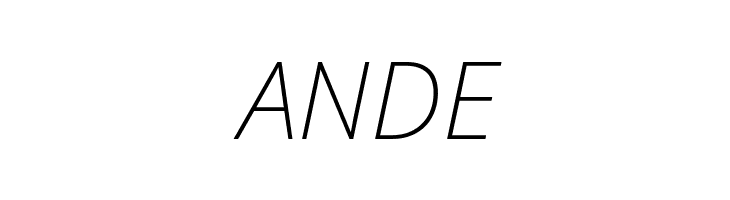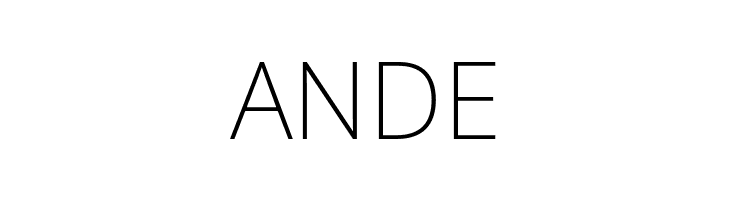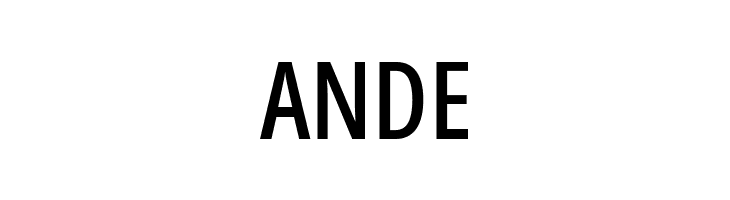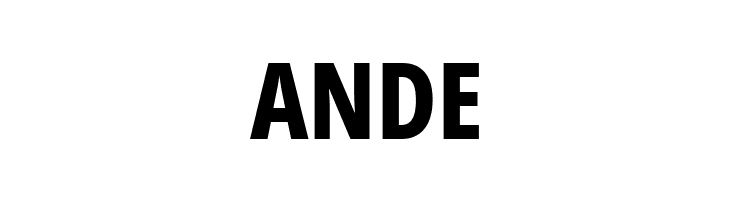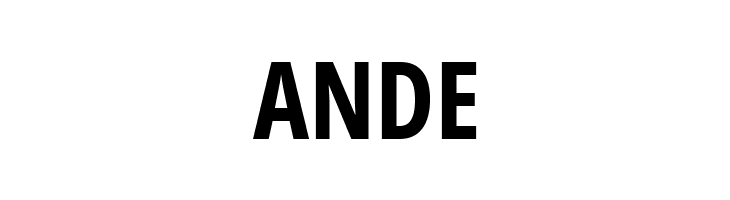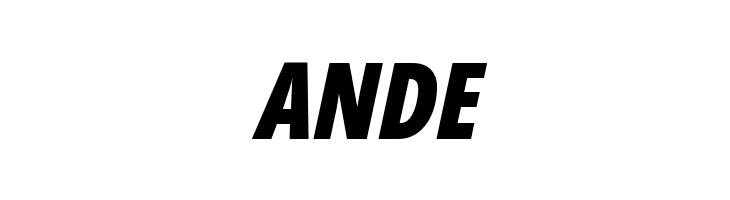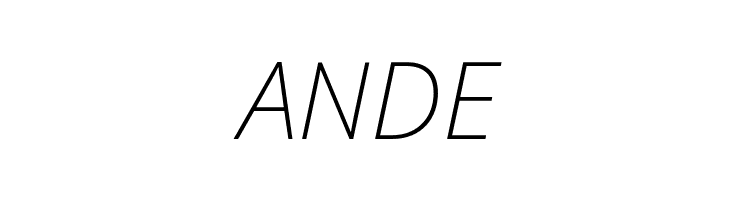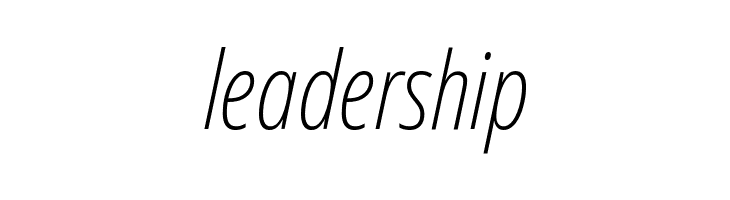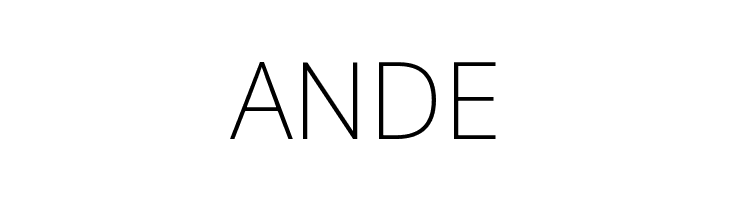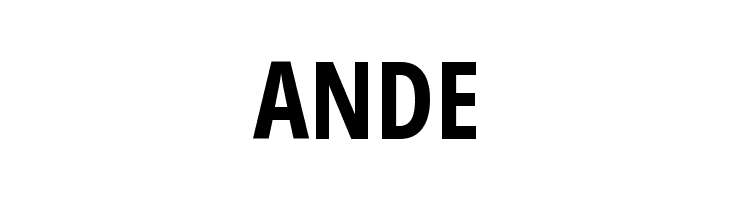
A bold, extra condensed italic sans-serif font with high contrast and tight spacing.
A modern, bold, extra condensed sans-serif font with clear, uniform strokes.
A modern, bold, extra condensed sans-serif typeface with strong visibility.
A modern, extra-condensed, bold italic typeface with a sleek and professional appearance.
A bold, italic, extra-condensed sans-serif font with a modern and dynamic style.
A bold, extra condensed sans-serif typeface with a modern, clean design.
A modern, extra bold, extra condensed sans-serif font with excellent legibility.
A bold, extra-condensed sans-serif font with italic styling and high contrast.
A modern, extra bold, italic, and extra condensed sans-serif typeface.
A modern, extra light, extra condensed sans-serif font with a clean and streamlined appearance.
A modern, extra-condensed sans-serif font with an extra light weight.
A sleek, extra light, italic, and extra condensed font with a modern and minimalist design.
A modern, extra light, extra condensed sans-serif with italic style.
A modern, extra-condensed sans-serif italic font with tight spacing.
A sleek, modern sans-serif font with an extra condensed and italicized style.
A modern, extra condensed sans-serif font with a light and airy appearance.
A modern, extra condensed sans-serif font with a light weight and clean design.
A sleek, extra-condensed, light, and italic sans-serif font with a modern style.
A sleek, extra condensed sans-serif font with a light, italic style.
A modern, extra-condensed sans-serif font with medium weight, ideal for space-efficient text.
A modern, extra condensed sans-serif font with medium weight and high legibility.
A sleek, extra condensed italic typeface with a modern and dynamic style.
A modern, extra condensed sans-serif font with medium weight and italic style.
A modern, extra condensed sans-serif font with semi-bold weight for versatile use.
A modern, extra condensed sans-serif font with semi-bold weight and tight spacing.
A modern, extra condensed, semi-bold italic sans-serif typeface with tight spacing.
A modern, extra condensed sans-serif font with semi-bold weight and italic style.
A modern, extra-condensed sans-serif font with thin strokes and a clean aesthetic.
A modern, extra condensed sans-serif font with a thin weight and clean design.
A sleek, extra condensed, thin italic font with a modern and elegant design.
A sleek, modern, thin italic typeface with extra-condensed width.
A clean, modern sans-serif font with a light weight and geometric precision.
A clean, minimalist sans-serif font with uniform stroke width and excellent readability.
A sleek, extra light sans-serif font with an italic style, offering modern elegance.